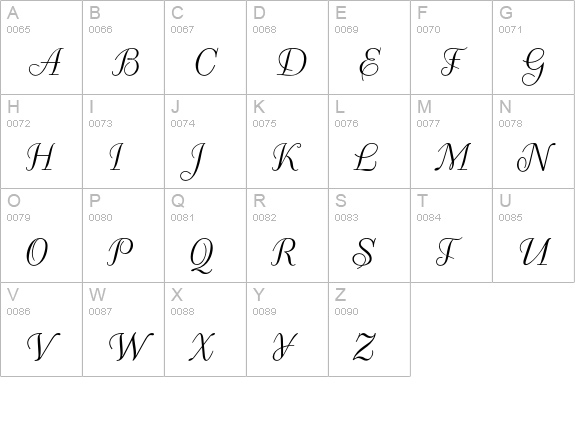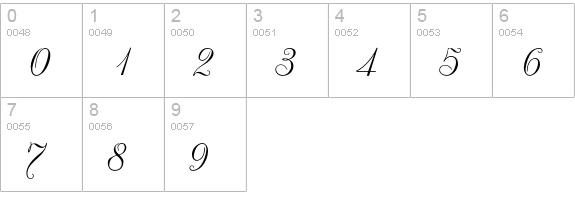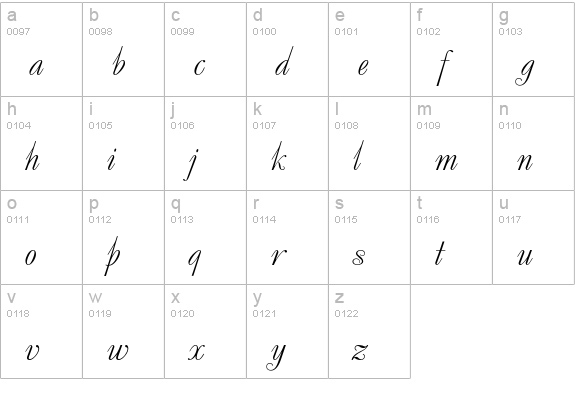
PM Decor Cyrillic Font Details
PM Decor Cyrillic font is a stunning display font that exudes elegance and sophistication. With its intricate decorative elements and stylish Cyrillic characters, this font is perfect for adding a touch of luxury to your designs. Whether you're working on invitations, logos, or branding materials, PM Decor Cyrillic font will surely make a statement. And the best part? You can download PM Decor Cyrillic font for free at FontsMarket.com! Don't miss out on this opportunity to enhance your projects with this beautiful and versatile font. Elevate your designs with PM Decor Cyrillic font today.